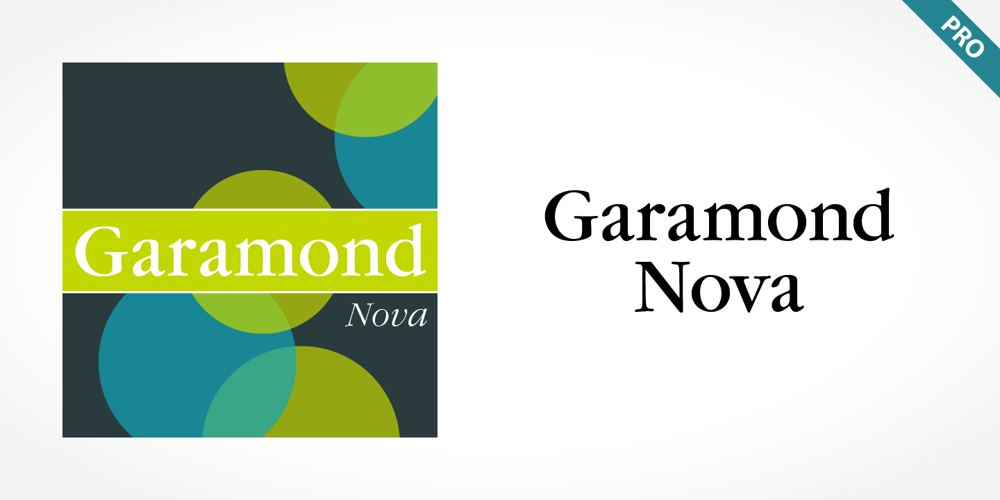
Garamond Nova Pro Font Family was designed by published by SoftMaker. Garamond Nova Pro contains 16 styles and family package options. Garamond Nova Pro is one of the fonts of the SoftMaker font library. It is a modern interpretation of the classic Garamond style. SoftMaker’s Garamond Nova Pro typeface family contains OpenType layout tables for sophisticated typography. It also comes with a huge character set that covers not only Western European languages, but also includes Central European, Baltic, Croatian, Slovene, Romanian, and Turkish characters. Case-sensitive punctuation signs for all-caps titles are included as well as many fractions, an extensive set of ligatures, and separate sets of tabular and proportional digits.